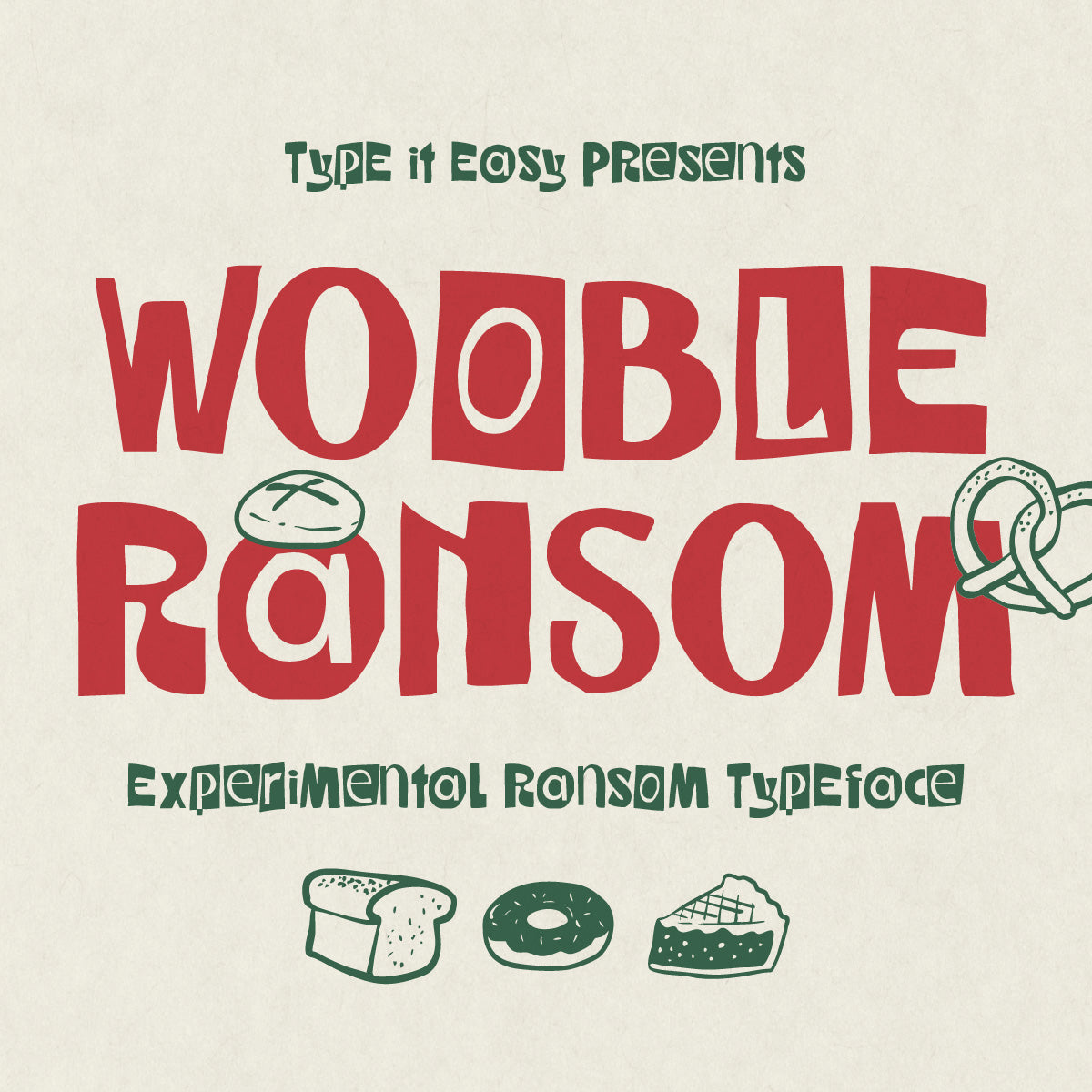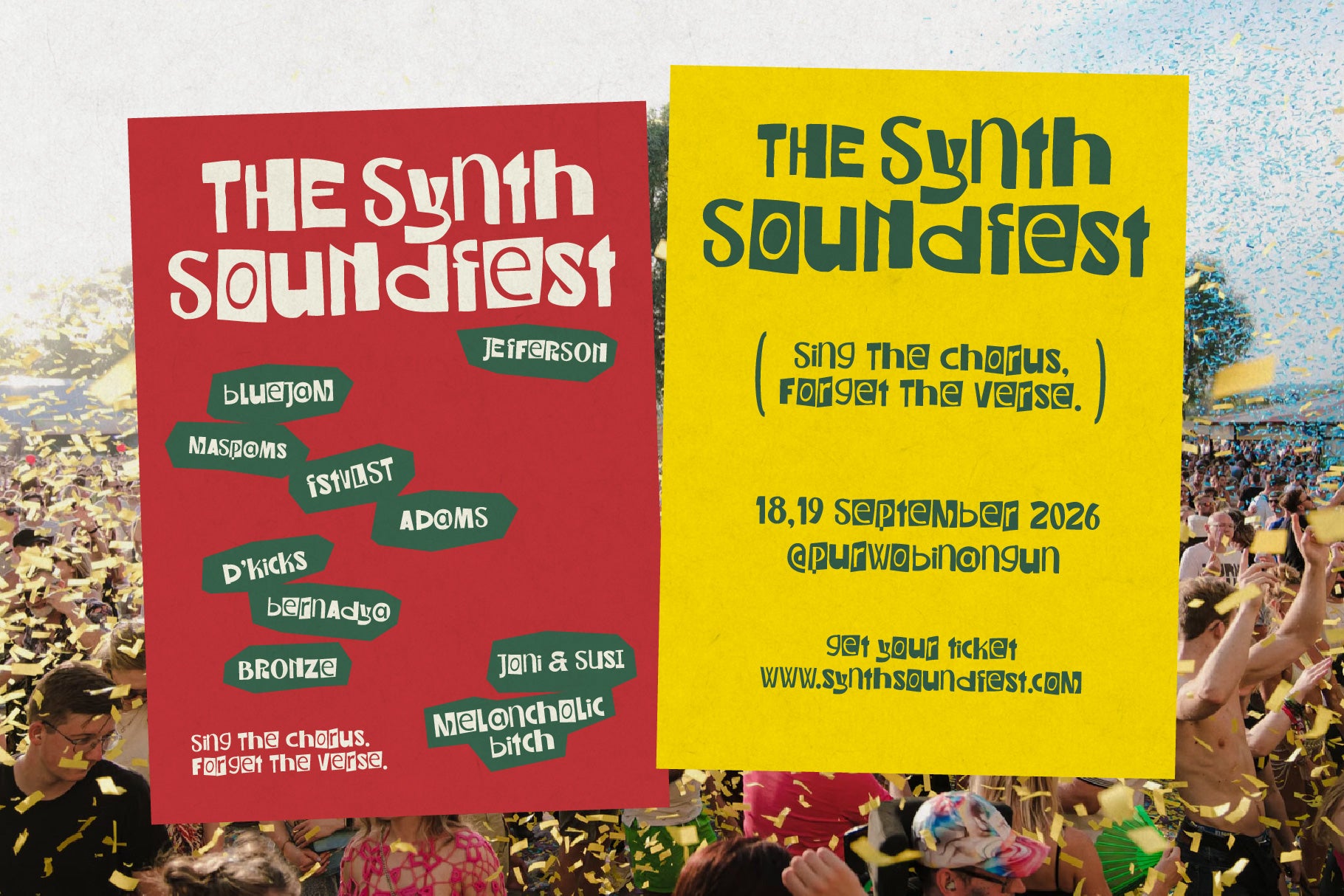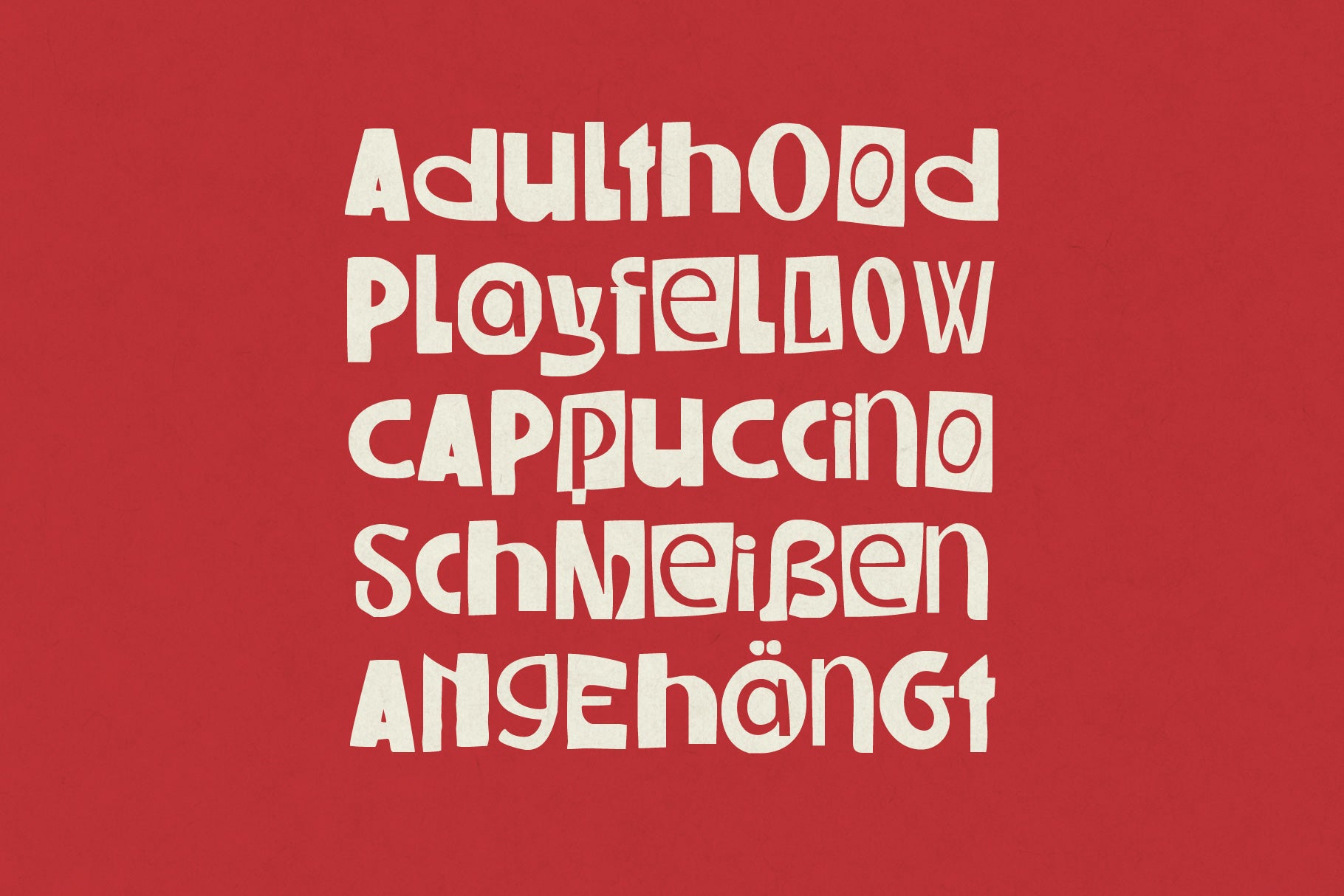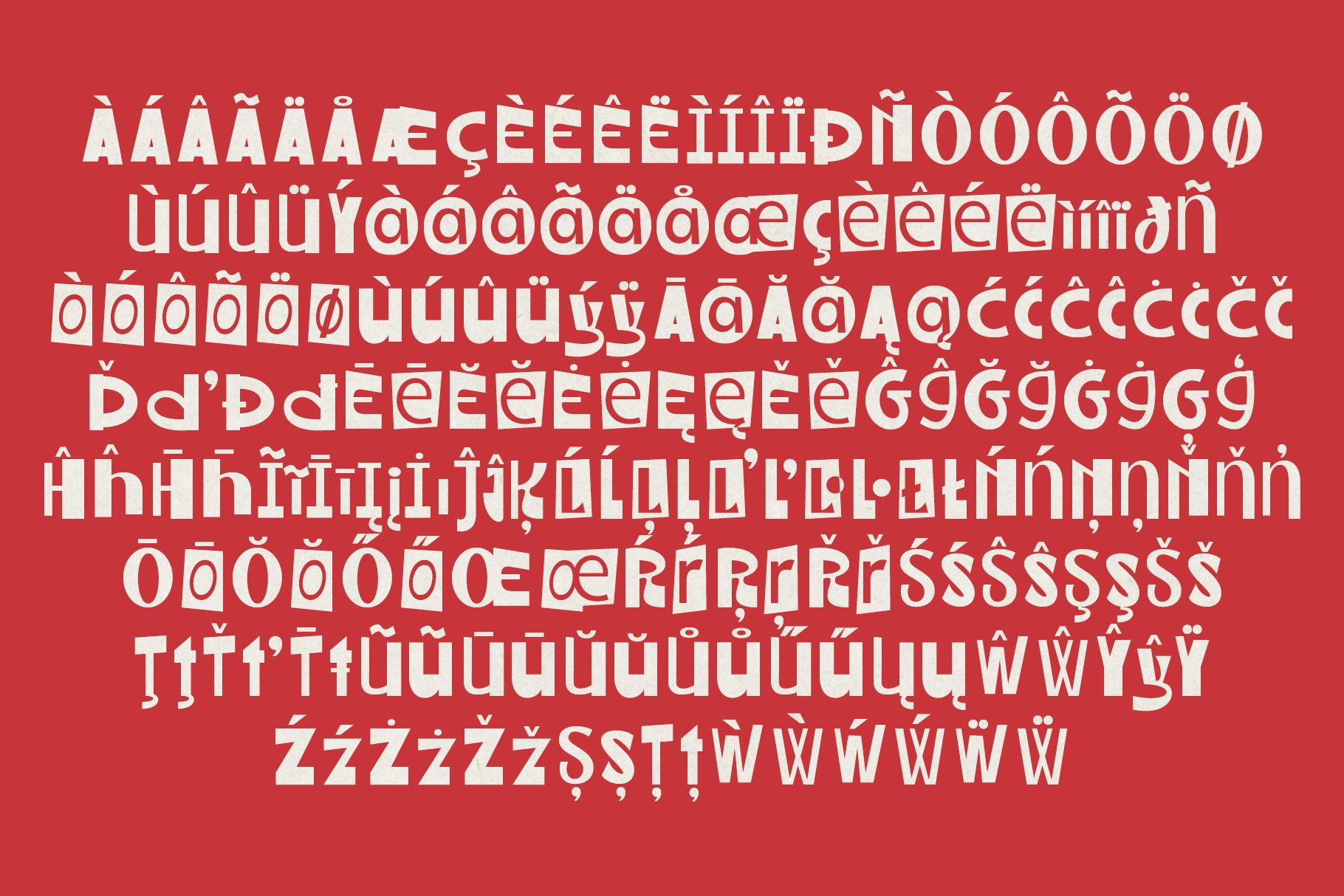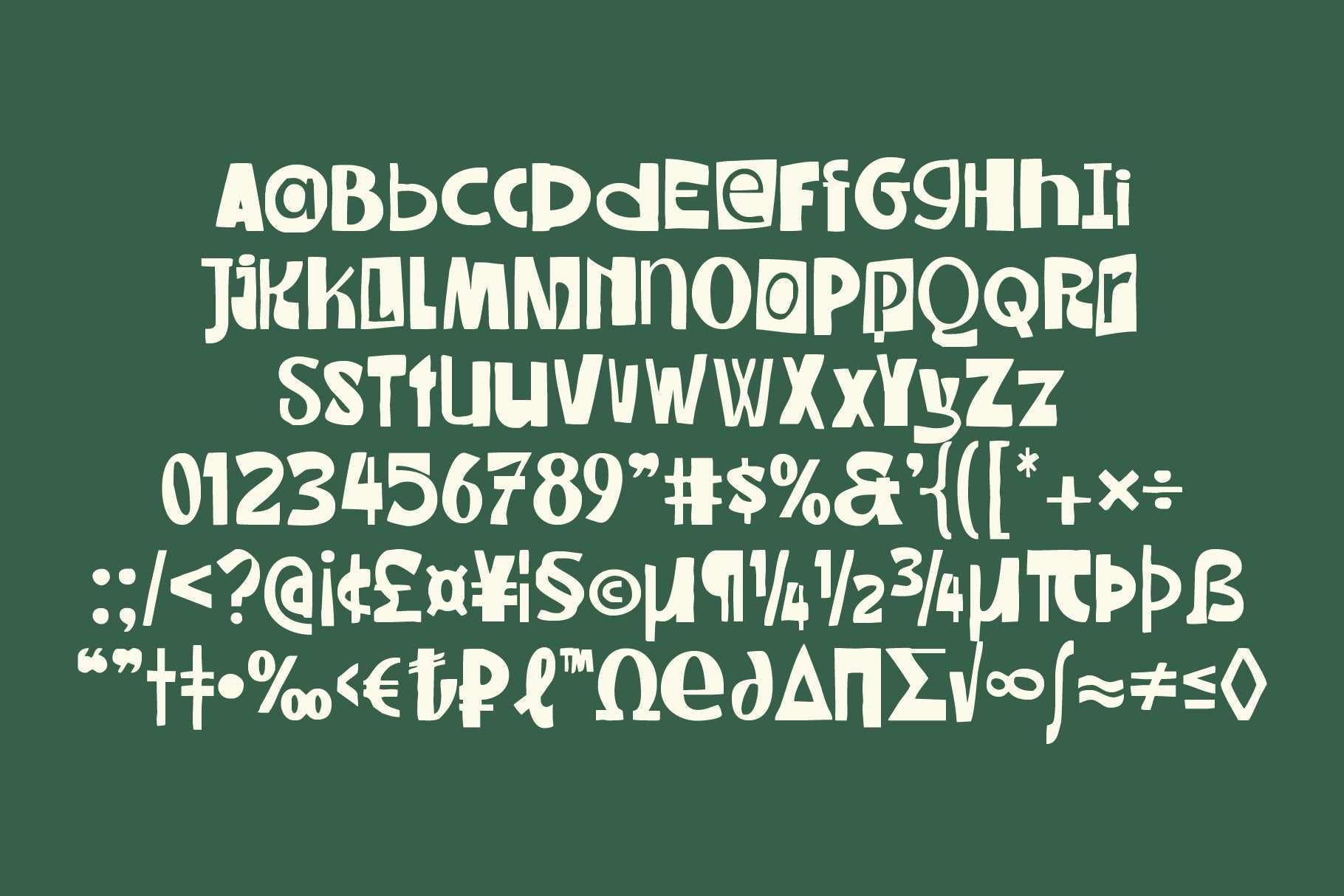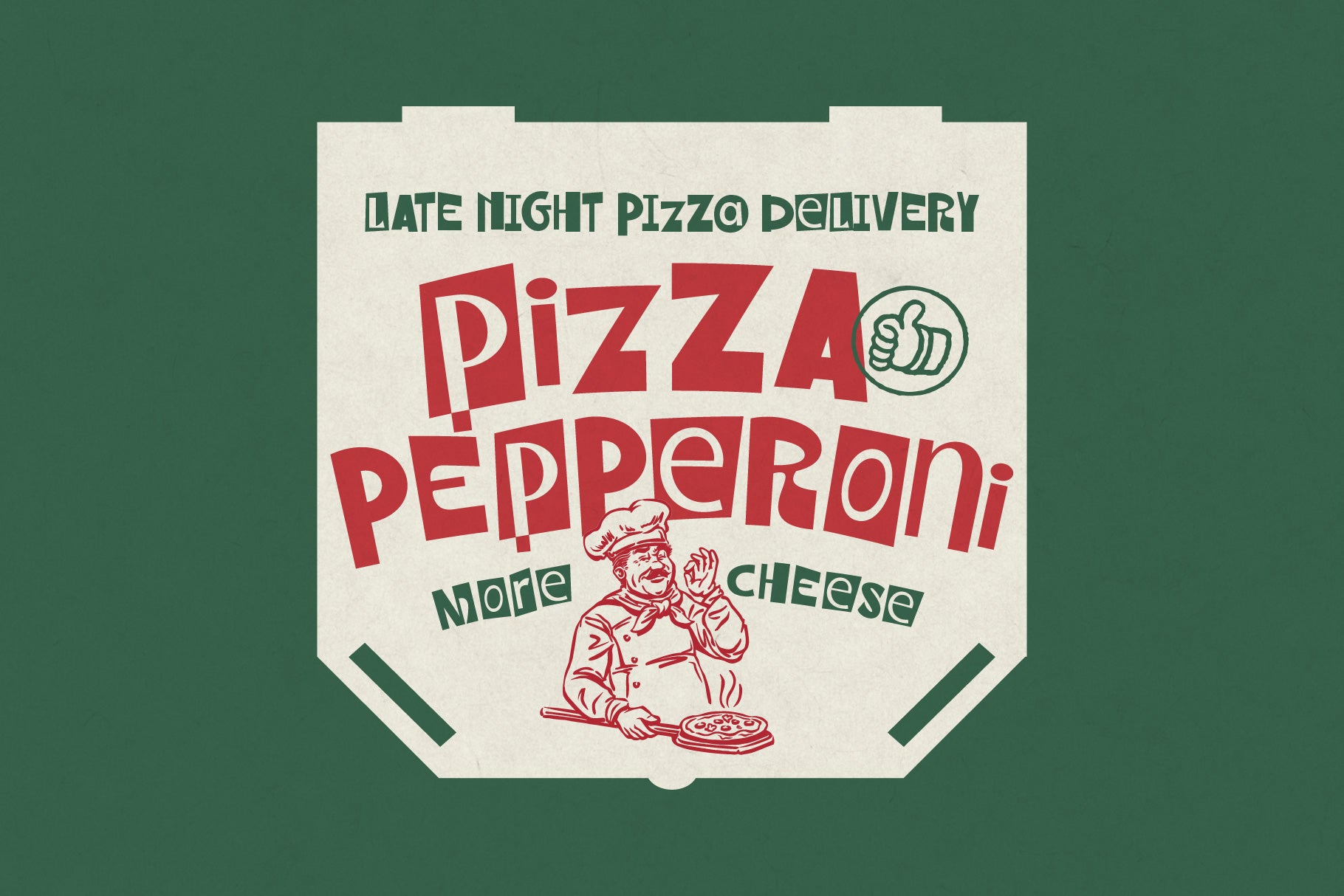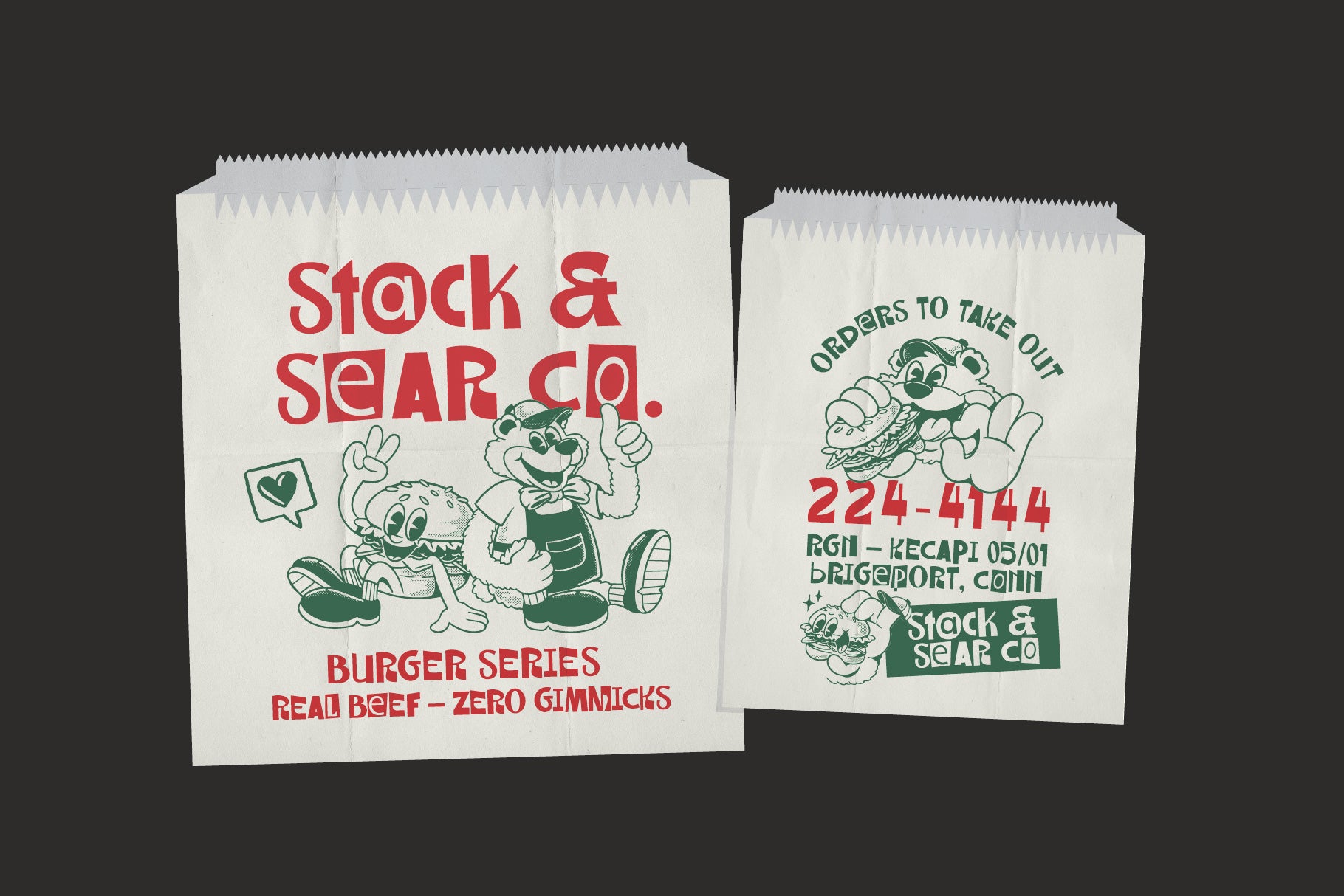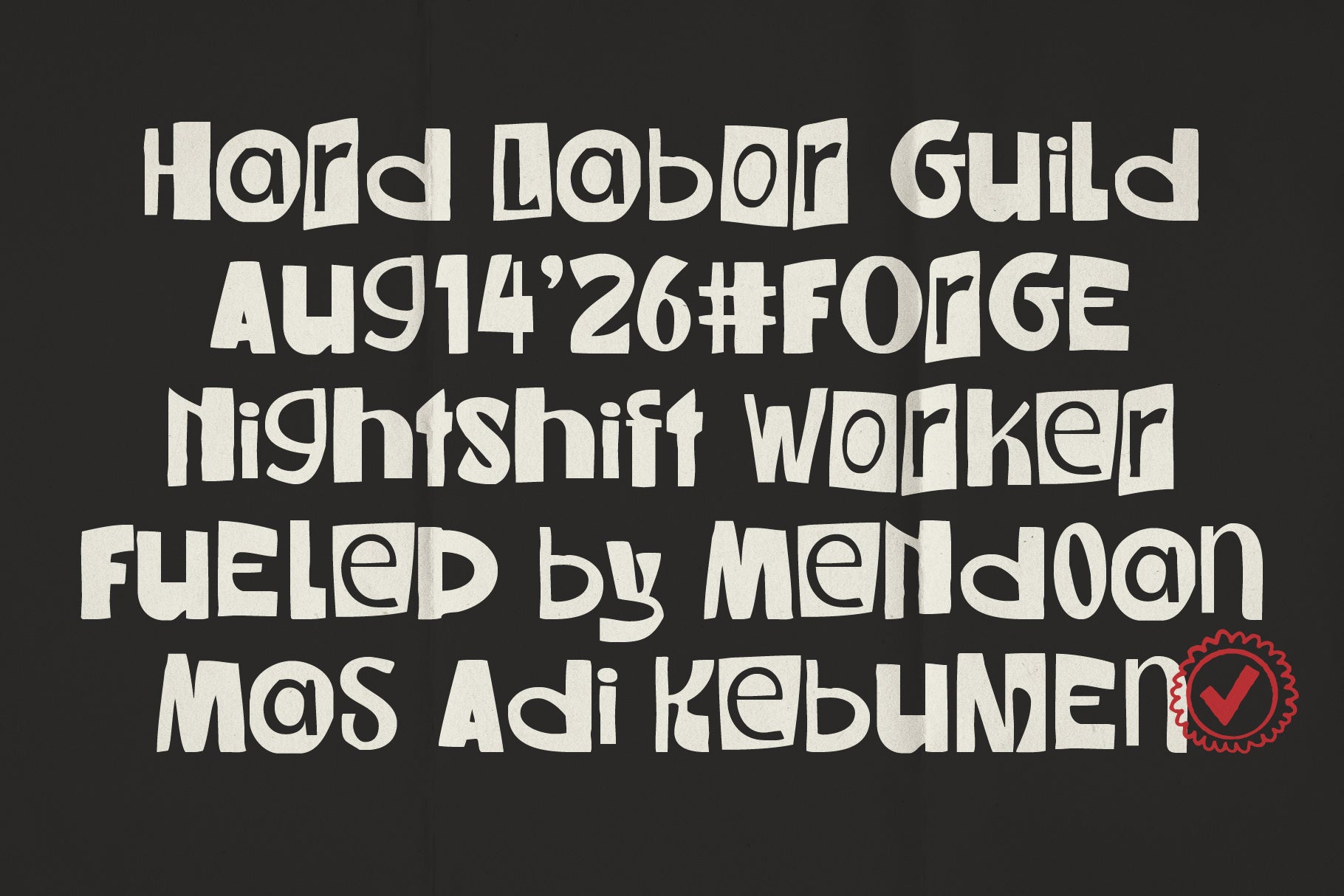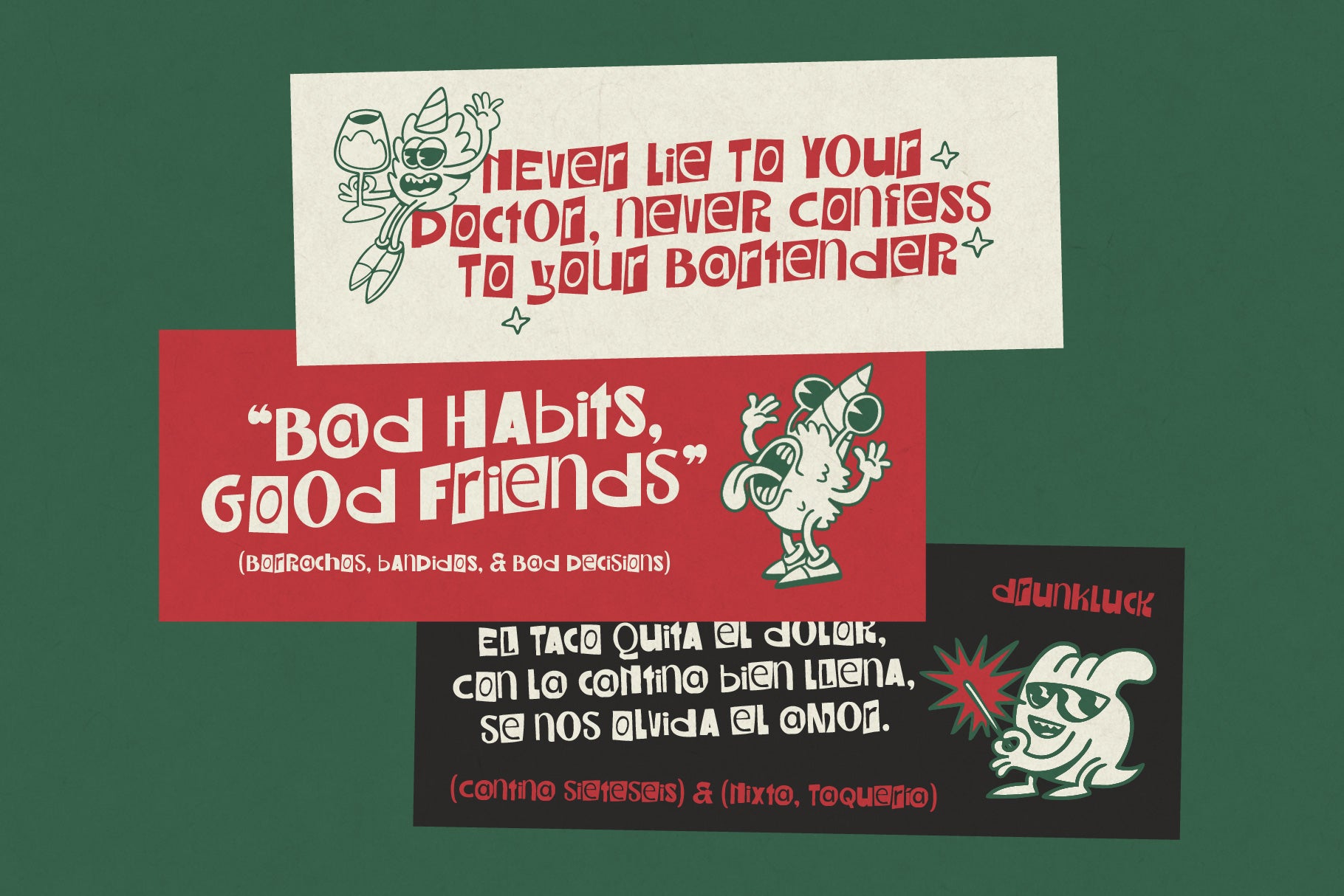
Wooble Ransom – Experimental Ransom Typeface
Quirky, bold, and unapologetically playful.
ST Wooble Ransom is an experimental display typeface inspired by the chaotic charm of paper cutouts and classic ransom note aesthetics—reimagined with a soft, doughy, organic rhythm. Each character features irregular block cutouts, bouncy baselines, and chunky silhouettes designed to give your typography an instant handcrafted punch.
Whether you are crafting food & bakery packaging, punchy retro posters, music gig graphics, playful merchandise, or eye-catching social media headlines, ST Wooble Ransom brings maximum personality with minimal effort.
• Expressive Paper-Cut / Ransom Aesthetic: Dynamic contrast between positive and negative shapes for high-impact headlines.
• Playful & Organic Geometry: Wonky, hand-cut silhouettes that maintain strong legibility.
• Versatile Display Usage: Perfect for packaging, branding, apparel, editorial layouts, and event posters.
• Food & beverage packaging (bakery, snacks, coffee, artisanal goods)
• Bold editorial covers, magazine spreads, and zines
• Gig posters, album covers, and event merchandise
• Brand identities looking for a fun, rebellious, or nostalgic craft vibe
Wooble Ransom is an experimental display typeface featuring a quirky, bold design inspired by paper cutouts and ransom notes. It includes uppercase letters, numerals, punctuation, and essential symbols in OTF, TTF, and WOFF/WOFF2 formats, characterized by irregular block cutouts and playful, organic geometry for high legibility.